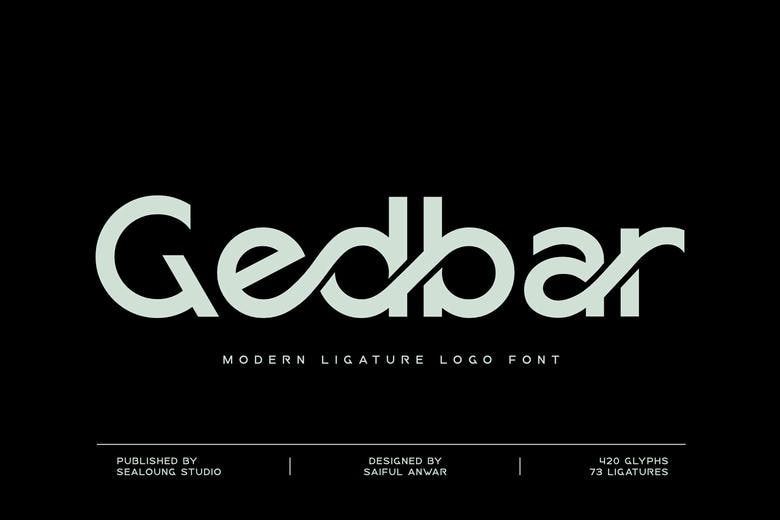
Gedbar Font
Gedbar is a bold and contemporary typeface designed to enhance your brand. Gedbar is constructed with a clean structure and bold personality to produce images that are immediately appealing to the eye.
Gedbar Logo Font